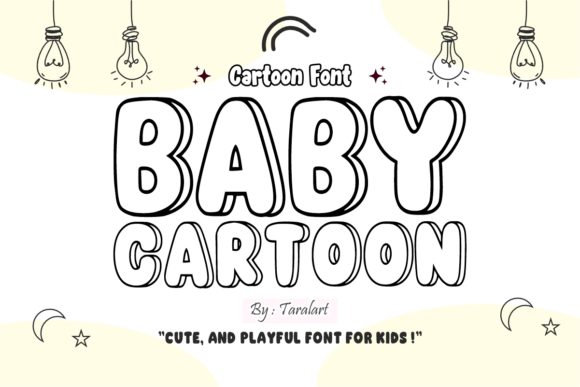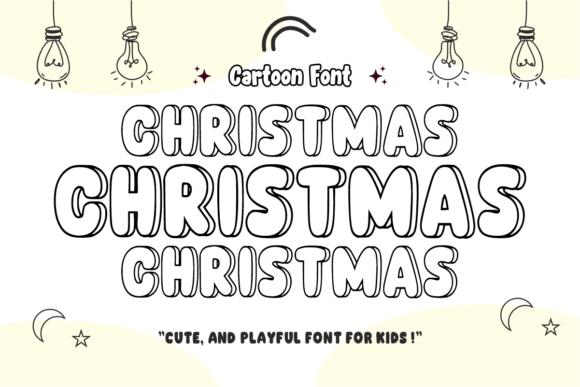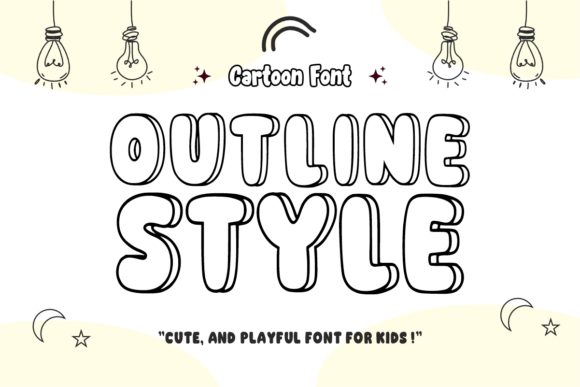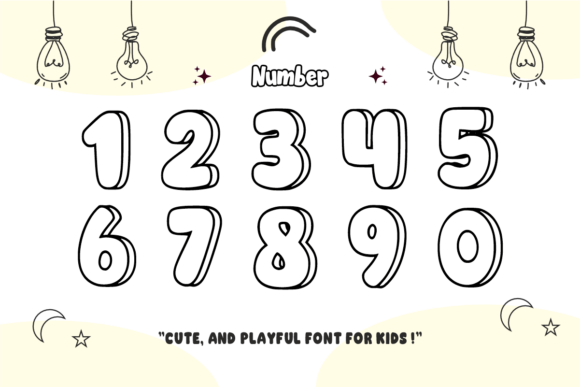
Cotton Wobble Font: The Ultimate Choice for Fun and Creative Designs
Are you a designer or crafter looking for a font that can add a touch of whimsy and playfulness to your projects? Look no further than the Cotton Wobble Font! This bold, modern, and cartoon-like outline font is made up of only capital letters, making it perfect for a wide range of creative applications.
What Makes Cotton Wobble Font So Special?
Cotton Wobble Font is a unique and eye-catching font that is sure to grab attention. Each character is carefully crafted to be cute, unique, and sweet, making it easy to recognize and remember. The font’s bold and modern design makes it perfect for a variety of projects, from kids’ craft designs to animations and comic titles.
Perfect for Kids’ Craft Designs
Cotton Wobble Font is an excellent choice for kids’ craft designs, including:
- Coloring books: Add a fun and playful touch to your coloring books with Cotton Wobble Font.
- Children’s essentials: Use the font to create fun and engaging designs for kids’ clothing, accessories, and home decor.
- Craft projects: From DIY toys to handmade cards, Cotton Wobble Font is the perfect choice for any kids’ craft project.
Ideal for Sublimated Designs
Cotton Wobble Font is also perfect for sublimated designs, including:
- T-shirts: Create fun and playful designs for kids’ and adults’ t-shirts.
- Mugs: Add a touch of whimsy to your mug designs with Cotton Wobble Font.
- Tote bags: Use the font to create fun and colorful designs for tote bags and other fabric products.
Animations and Comic Titles
Cotton Wobble Font is not just limited to print designs. It’s also perfect for:
- Animations: Use the font to create fun and engaging animations for kids and adults alike.
- Comic titles: Add a touch of playfulness to your comic titles and book covers.
Why Choose Cotton Wobble Font?
There are many reasons why Cotton Wobble Font stands out from other fonts:
- Unique and eye-catching design: Each character is carefully crafted to be cute, unique, and sweet.
- Easy to recognize: The font’s bold and modern design makes it easy to recognize and remember.
- Versatile: Cotton Wobble Font can be used for a wide range of creative applications.
Tips for Using Cotton Wobble Font
Here are some tips for getting the most out of Cotton Wobble Font:
- Experiment with different colors: Cotton Wobble Font looks great in a variety of colors, so don’t be afraid to experiment.
- Pair with other fonts: Try pairing Cotton Wobble Font with other fonts to create a unique and interesting design.
- Use it sparingly: While Cotton Wobble Font is fun and playful, it can be overwhelming if used too much. Use it sparingly to add a touch of whimsy to your designs.
Cotton Wobble Font is a versatile and fun font that is perfect for designers and crafters looking to add a touch of whimsy and playfulness to their projects. With its unique and eye-catching design, it’s sure to grab attention and leave a lasting impression. So why wait? Let your imagination run wild and start creating with Cotton Wobble Font today!